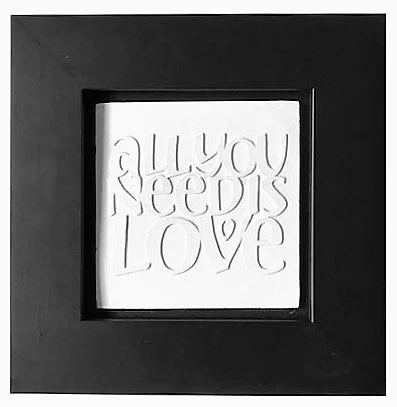
Image 1 of 1 All You Need by Celia Kilner £260.00 This beautiful lettering is cast in plaster, and comes with a flat black wooden frame. Size Aprox. 20 x 20cm Add To Cart Added! This beautiful lettering is cast in plaster, and comes with a flat black wooden frame. Size Aprox. 20 x 20cm